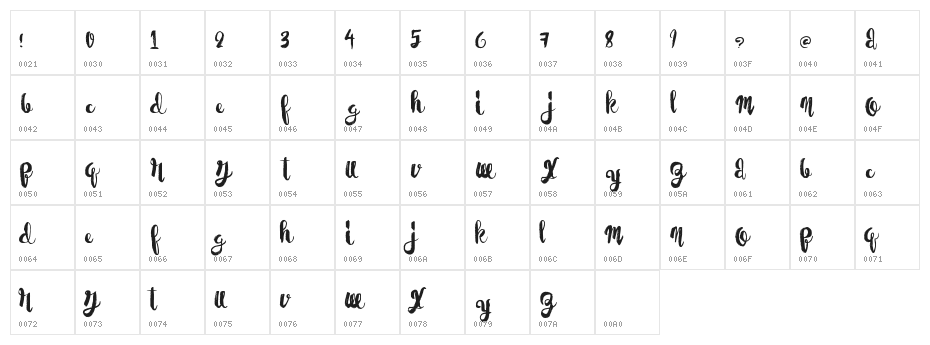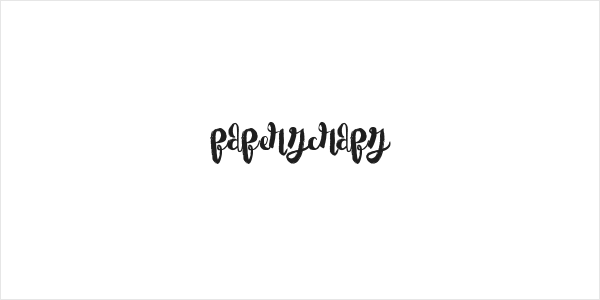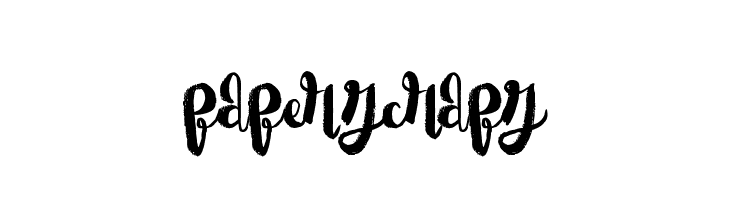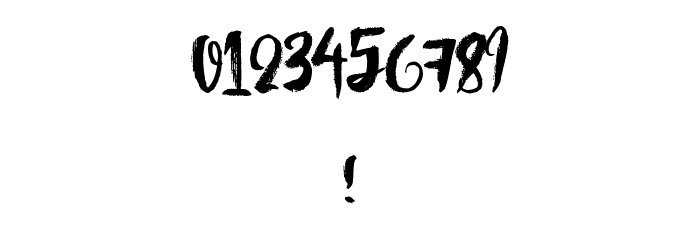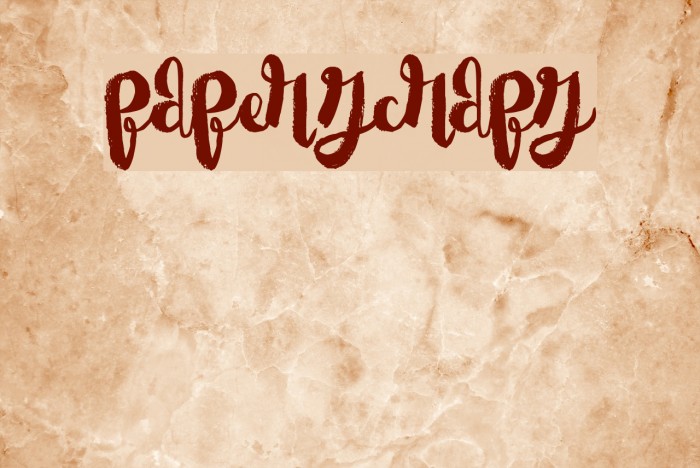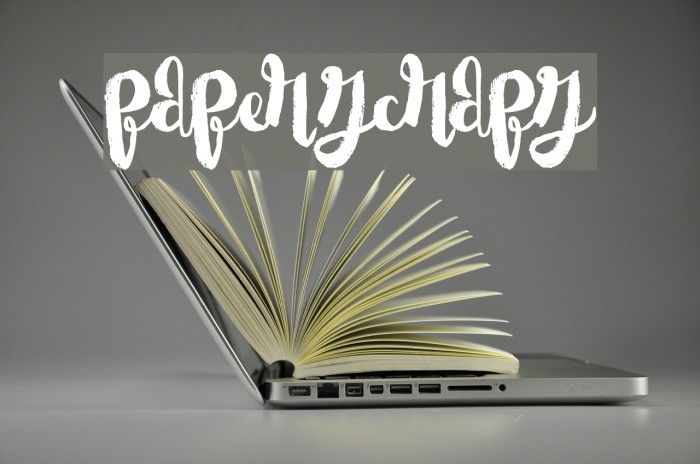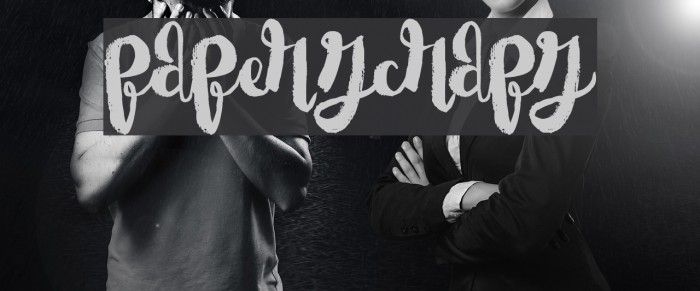
PaperScraps Font
PaperScraps Description
This font exudes a playful and artistic vibe, characterized by its brush-like strokes and irregular, hand-drawn appearance. The letters are bold and expressive, with a dynamic flow that suggests movement and creativity. Each character has a unique flair, with varying thicknesses that add to the overall charm and spontaneity of the design. The uppercase and lowercase letters maintain a consistent style, while the numbers and punctuation marks complement the alphabet with their own quirky touches. This font is perfect for projects that require a personal, handcrafted feel, making it ideal for creative branding, artistic posters, and unique invitations.
| Use Case | Logos, Headlines, Artistic projects |
| Proposed Projects | Creative branding, artistic posters, unique invitations, handmade product labels. |